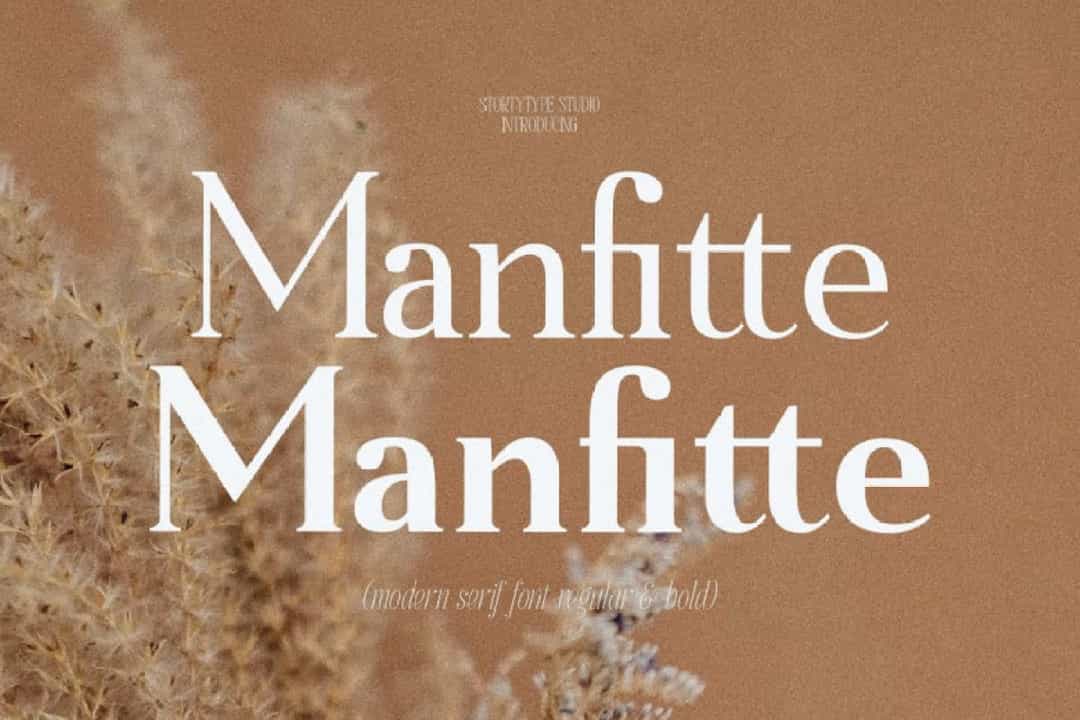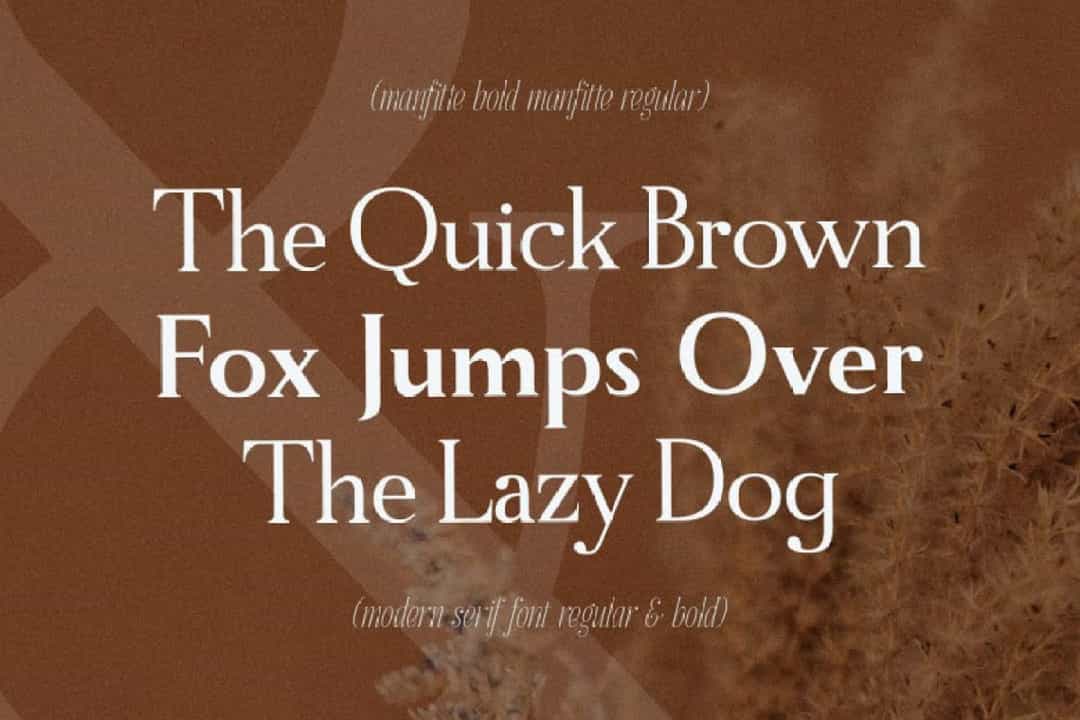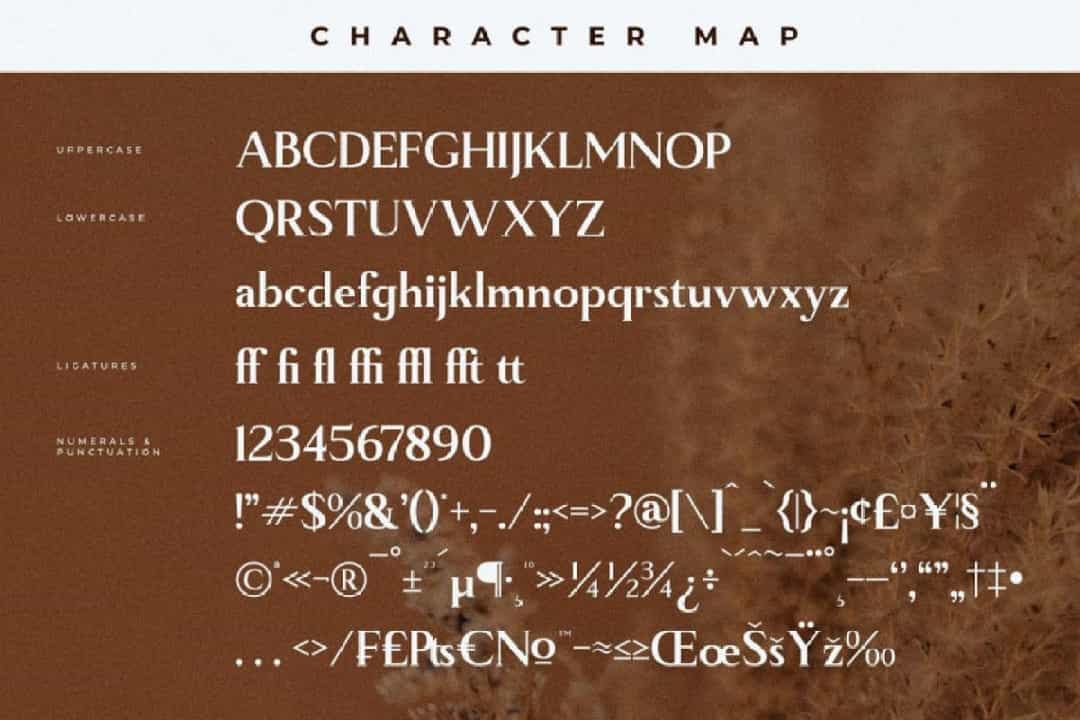
Manfitte Font developed by Storytype is an elegant and contemporary serif typeface that exudes its own distinct style and contemporary look. Perfect for logo design, movie or book name design, fashion brand clothing design, magazine letters, quotes and much more, Manfitte Font is suitable for use across many settings and occasions.